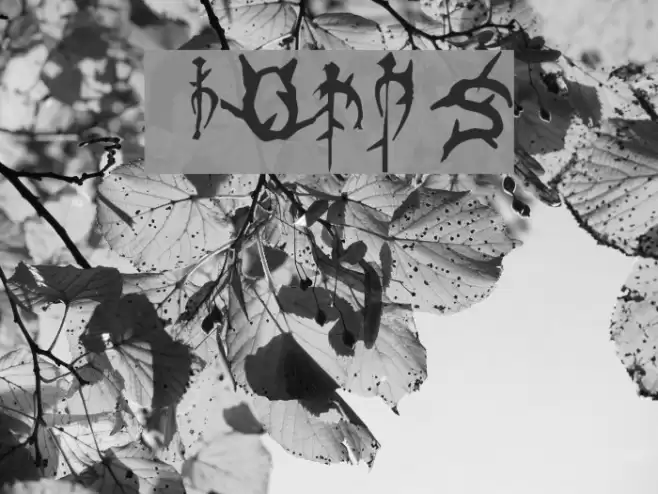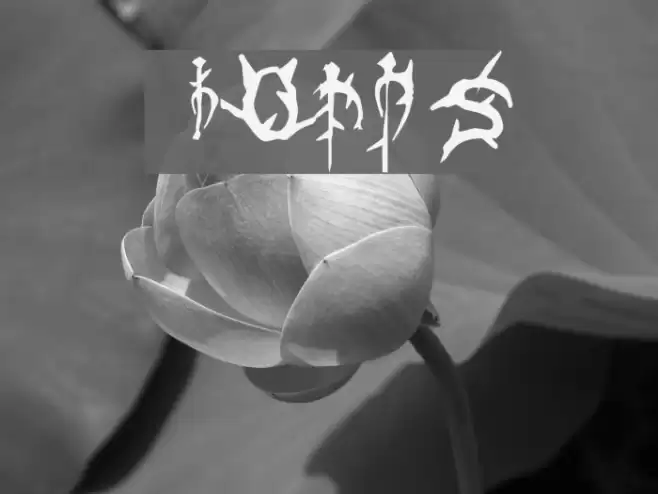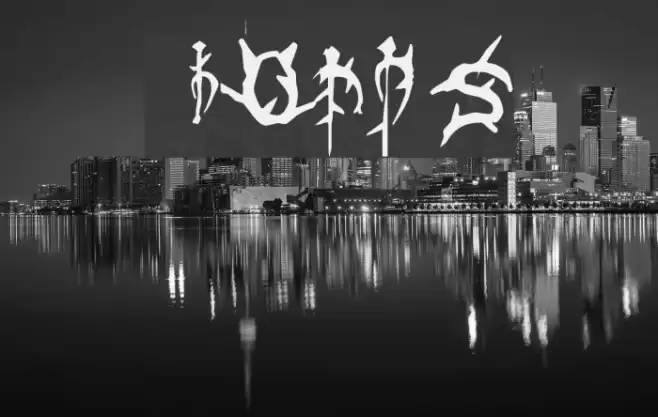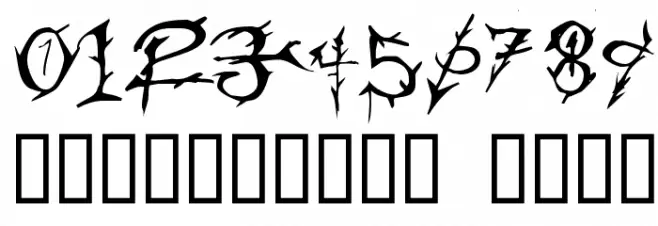
Thorns Font
Thorns Description
This font features a unique and edgy design, characterized by sharp, thorn-like extensions on each character. The letters are bold and intricate, with a gothic and somewhat aggressive appearance. The uppercase and lowercase letters maintain a consistent style, with jagged edges and pointed tips that resemble thorns or spikes. Numbers and special characters follow the same design principles, ensuring a cohesive look across all glyphs. This font is highly decorative and makes a strong visual impact, suitable for projects that require a dramatic and intense aesthetic.
An edgy, thorn-inspired font with a gothic and aggressive style from Decorative fonts.
- Proposed Projects: Ideal for use in band logos, horror-themed posters, edgy apparel designs, and any project requiring a bold, dramatic typeface.
- Overall Style: Gothic, Decorative
- Use Case: Logos, Posters, Apparel